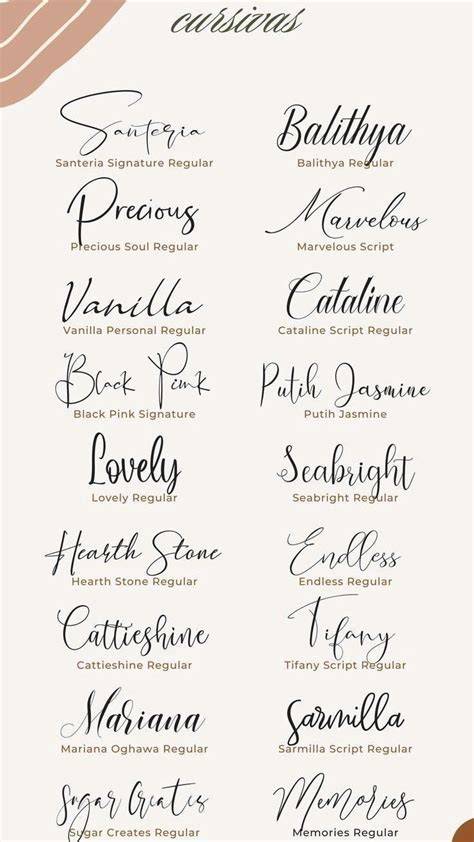
The Magic Of Cursive Fonts: A Comprehensive Guide To Dafont
Cursive is a beautiful, timeless font that has been around for centuries and is still used to this day. It is a type of calligraphic font that is characterized by its flowing, looping lines and curves. Cursive fonts are typically used for invitations, cards, and other important documents, as they add an air of elegance to the written word. Cursive fonts are also popular for logos and branding, giving a company an air of sophistication and class.
Dafont is a website that offers a wide selection of free cursive fonts for download. They have a huge selection of fonts from all different categories, from script and calligraphy to handwriting and poster fonts, and even dingbat and symbol fonts. With so many fonts to choose from, you can easily find the perfect one for your project. Whether you’re looking for a classic, timeless font or something more modern and unique, Dafont has it all.
Tips for Choosing the Right Cursive Font
When it comes to choosing the right cursive font, there are a few things to keep in mind. First, consider the overall look and feel of your project. If you’re creating something formal, like a wedding invitation, you may want to opt for a classic, elegant font. If you’re creating something more casual, like a flyer or poster, you may want to choose a more playful or modern font. Next, keep in mind the size and readability of the font. If you’re using the font for something like a business card, you’ll want to make sure the font is legible and not too small. Finally, consider the weight of the font. If you’re using a bolder font, you may want to reduce the size to make sure the text is still legible.
Cursive fonts are a timeless and elegant way to add style to any project. With the huge selection of free cursive fonts available on Dafont, you can easily find the perfect font for your project. Just keep in mind the overall look and feel of your project, the size and readability of the font, and the weight of the font when selecting the right font for your project.